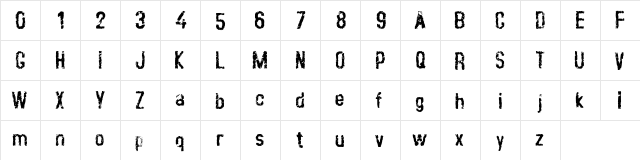
| Style | crust_clean |
| Foundry | thibault dietlin |
Design Context for crust_clean Typeface
crust_clean is a composed and adaptable typeface that performs quietly and consistently across a wide range of design contexts.